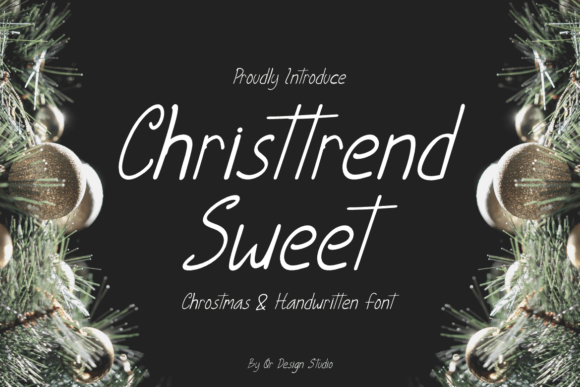
Introducing Christtrend Sweet Font, the perfect companion for all your creative endeavors! Crafted with love and care, this sweet and friendly handwritten font is here to elevate your designs to new heights. Whether you're a food blogger, a graphic designer, or simply someone with a passion for beautiful typography, Christtrend Sweet Font is the ideal choice to make your creations truly stand out.
With its natural and unique style, Christtrend Sweet Font adds a touch of personality and charm to any project. It effortlessly captures the essence of handwritten beauty, infusing your designs with a warm and inviting feel. As you explore the endless possibilities this font offers, you'll find yourself amazed at how seamlessly it blends into various design styles.
Are you a food blogger looking to captivate your audience with stunning visuals? Look no further! Christtrend Sweet Font is the secret ingredient to creating mouthwatering blog posts and enticing recipe cards. Let the words dance on the page, enticing your readers to dive into your culinary world. With this font, your food blog will become a feast for the eyes and a source of inspiration for all who visit.
But don't limit yourself to just food-related projects. Christtrend Sweet Font is a versatile companion that adapts effortlessly to any design need. From wedding invitations to branding materials, from social media graphics to product packaging, this font is your go-to solution for adding that extra touch of elegance and creativity. Let your imagination run wild as you explore the endless possibilities this font brings to the table.
Created by qrdesignstd, a master of font craftsmanship, Christtrend Sweet Font is the result of meticulous attention to detail and a deep understanding of design aesthetics. Each stroke and curve has been carefully designed to ensure a harmonious blend of beauty and legibility. You can trust that this font will deliver top-notch quality in every project you undertake.